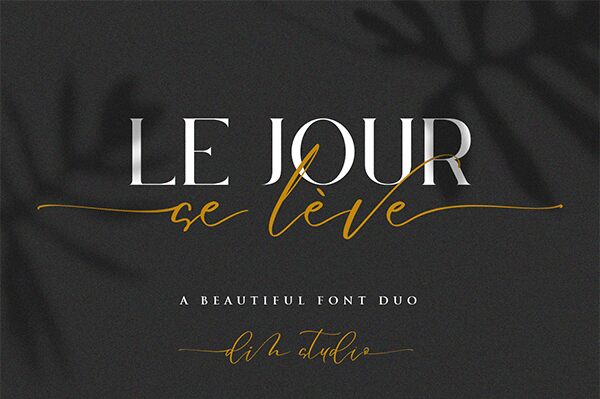
Le Jour Serif font by Din Studio is a stylish, elegant typeface that merges sophistication with a modern serif design. Its refined aesthetic captures attention while maintaining readability, making it an ideal choice for designers looking to add a touch of class.
This free serif font is excellent for magazines, branding projects, invitations, headings, packaging designs, maybe even your new logo or other various print and digital tasks.
Features include:
- Alternates
- Stylistic Sets
- Multilingual Supports
- Numerals and Punctuations